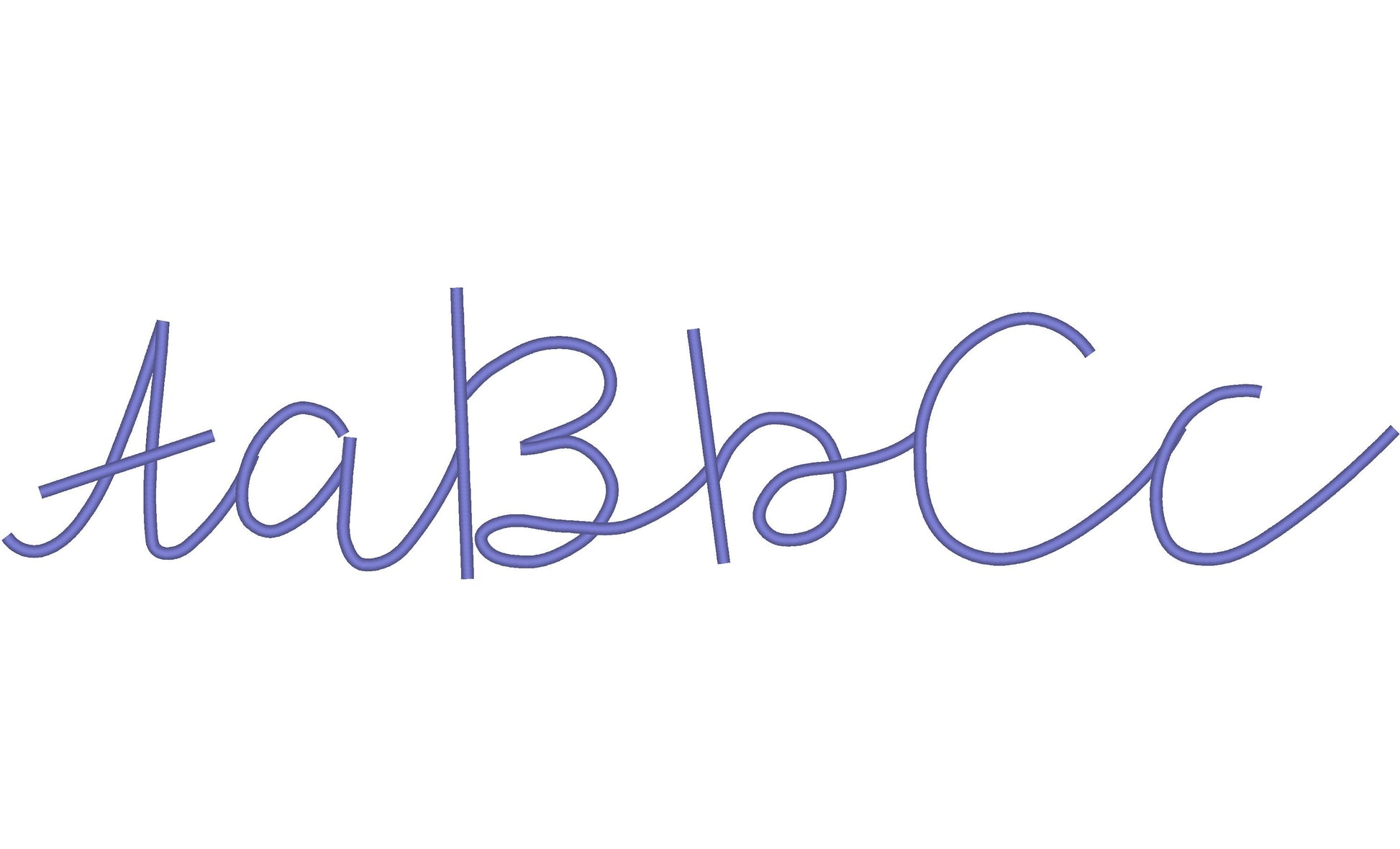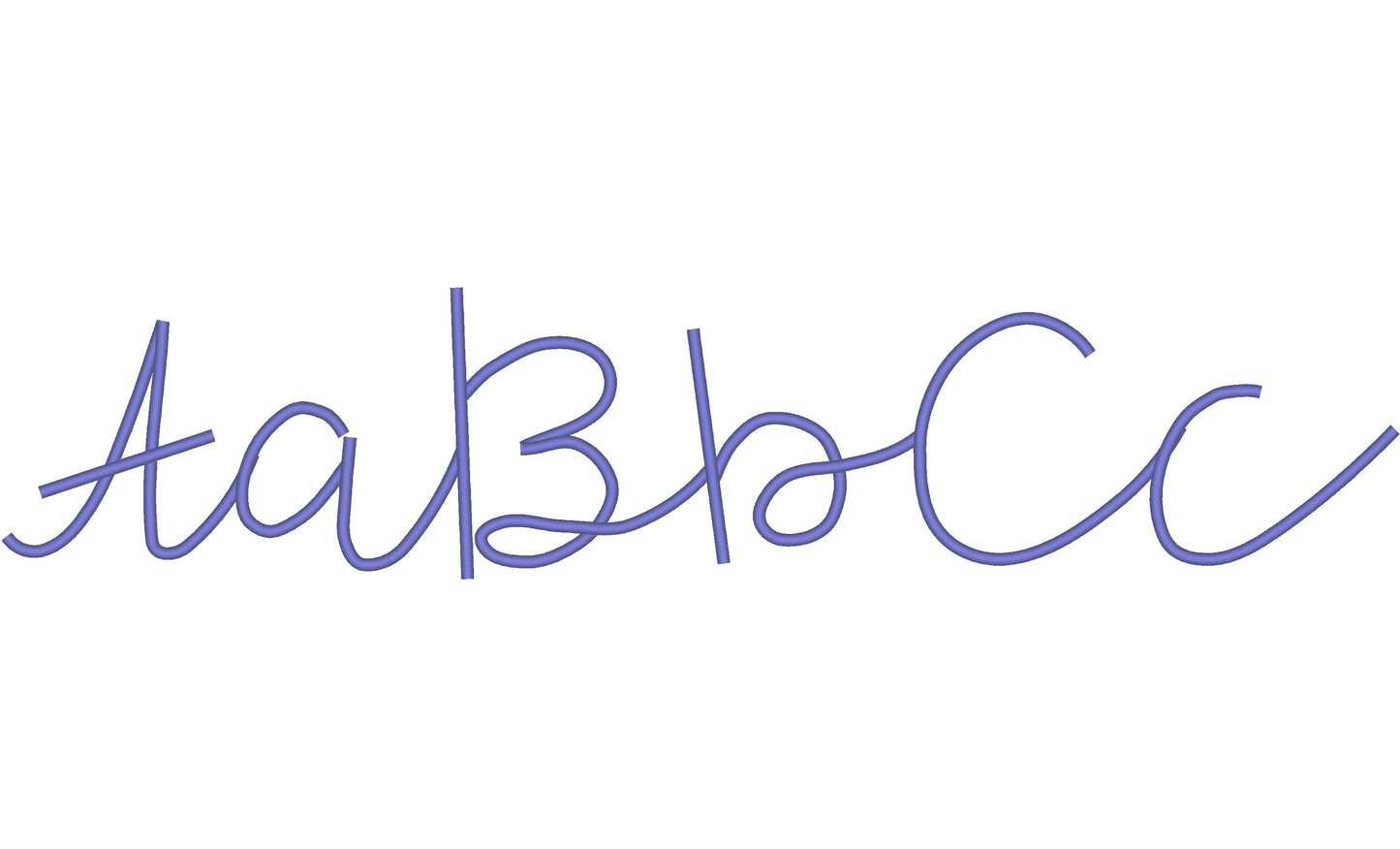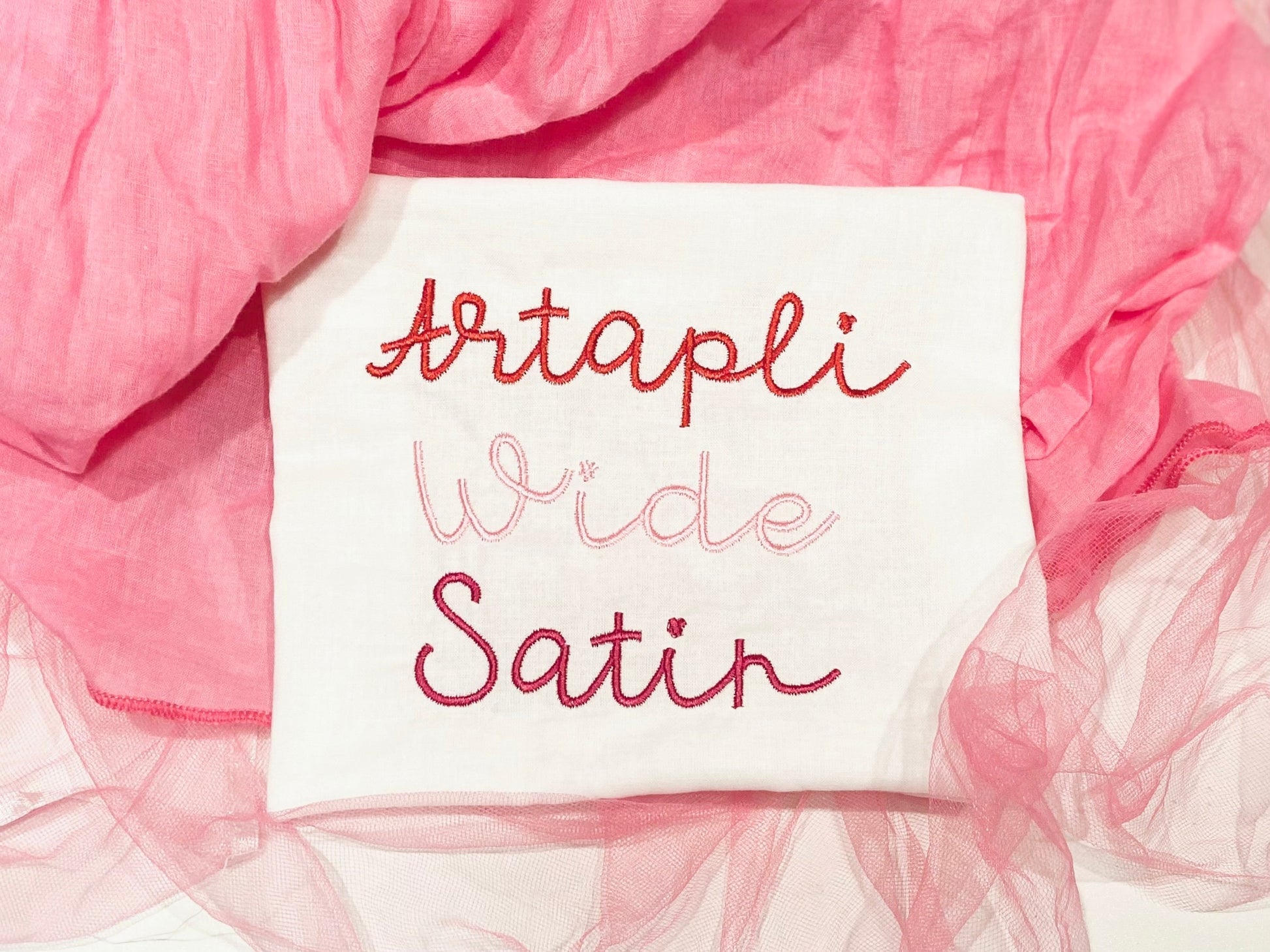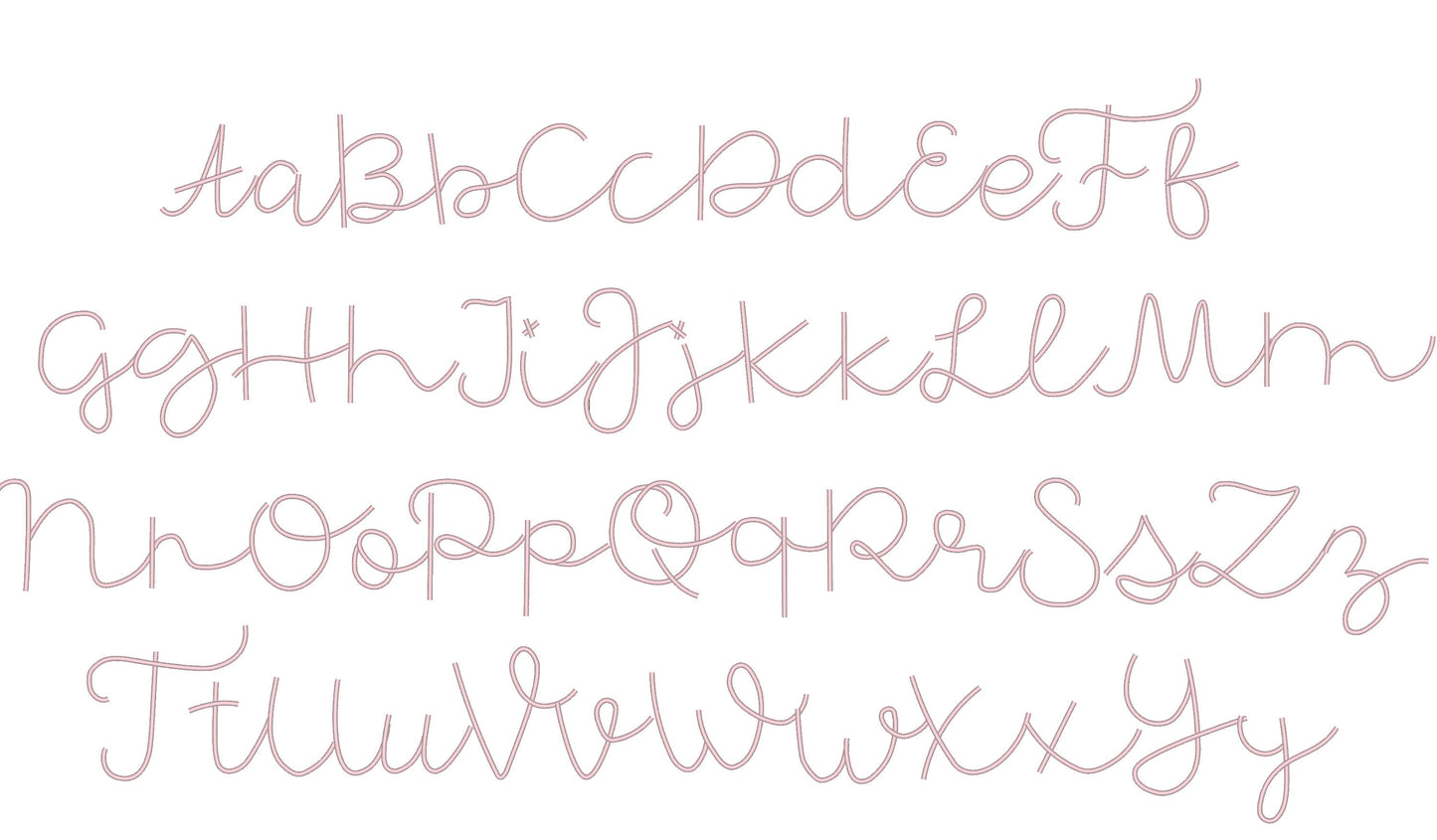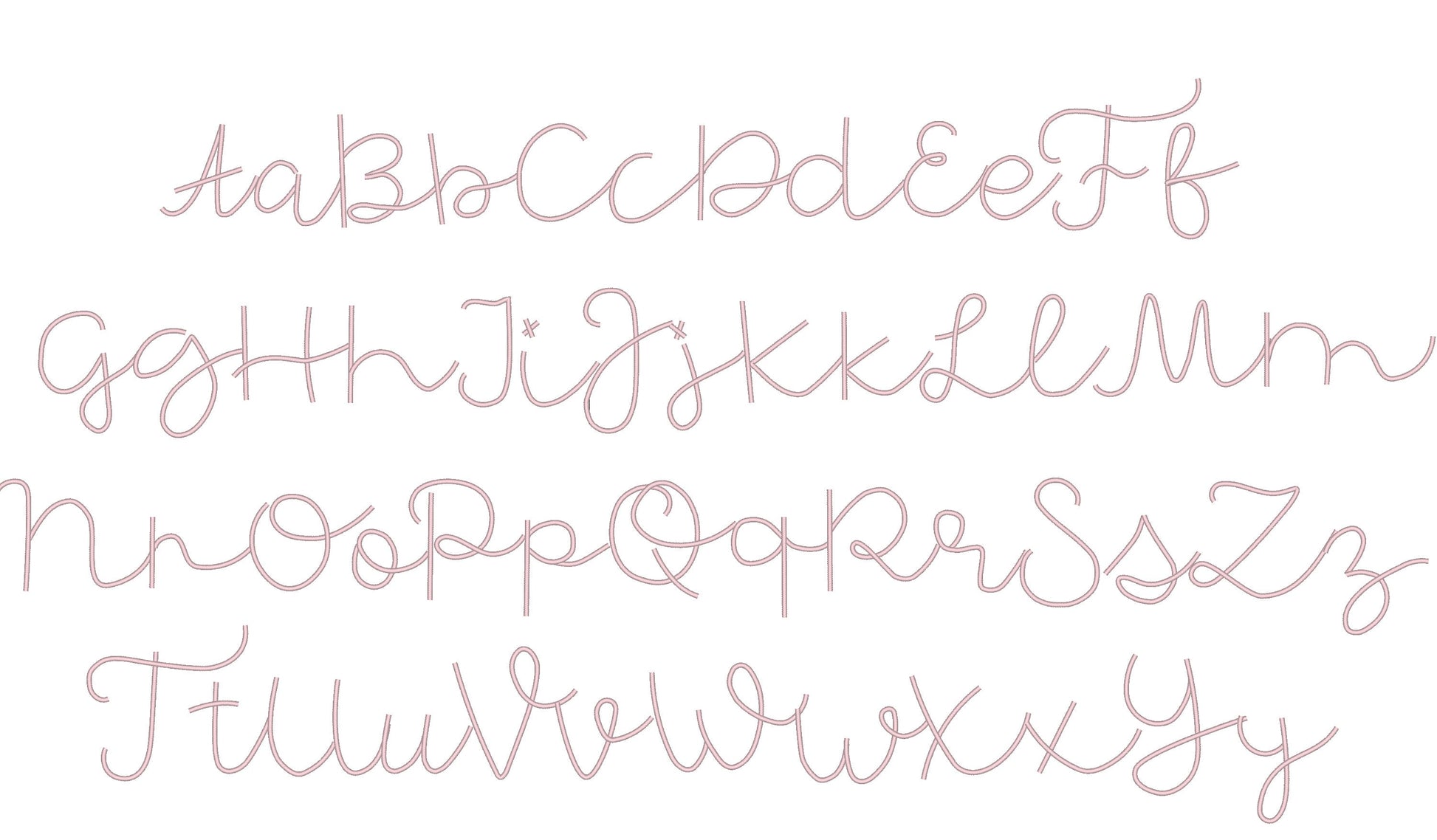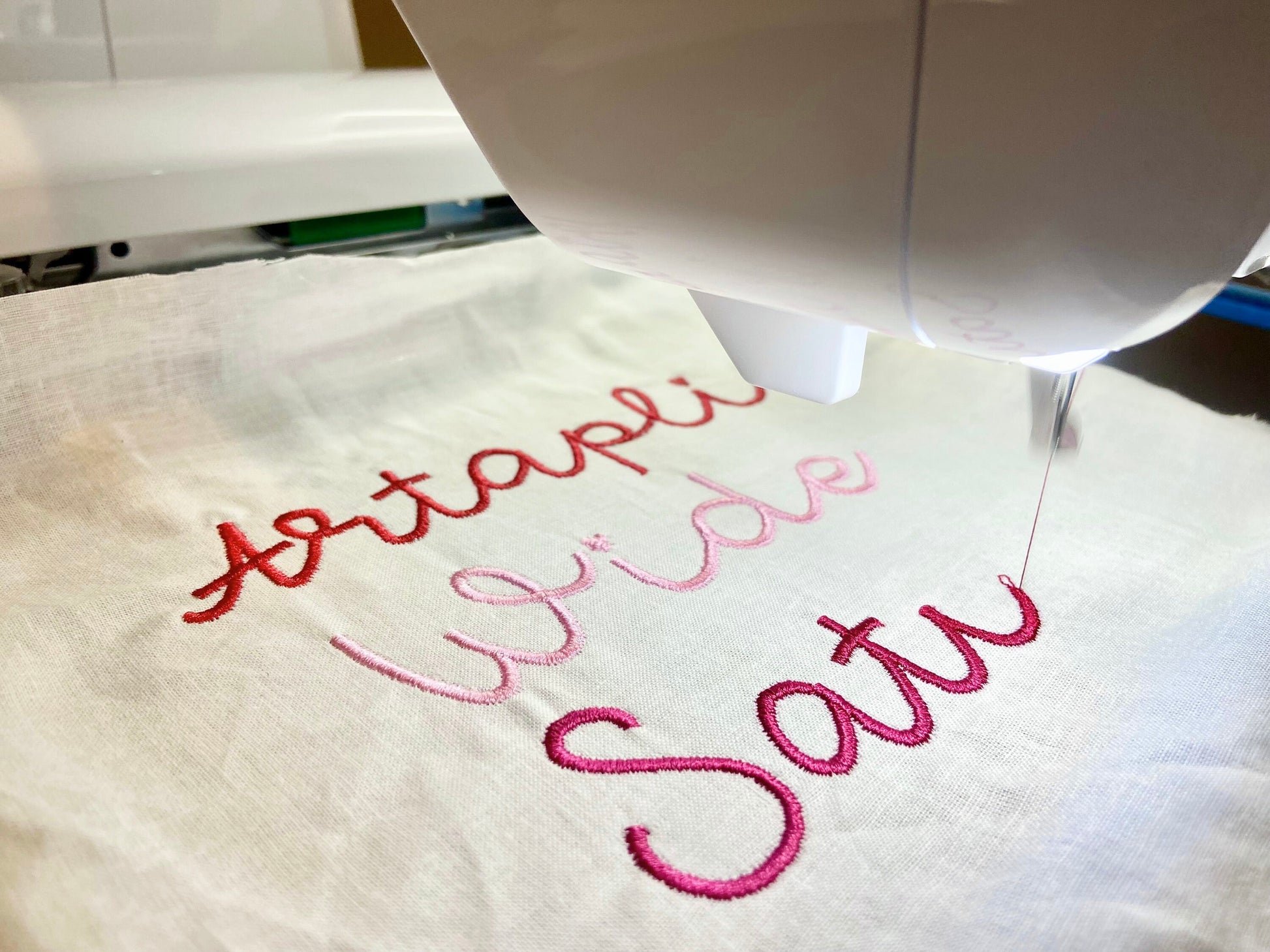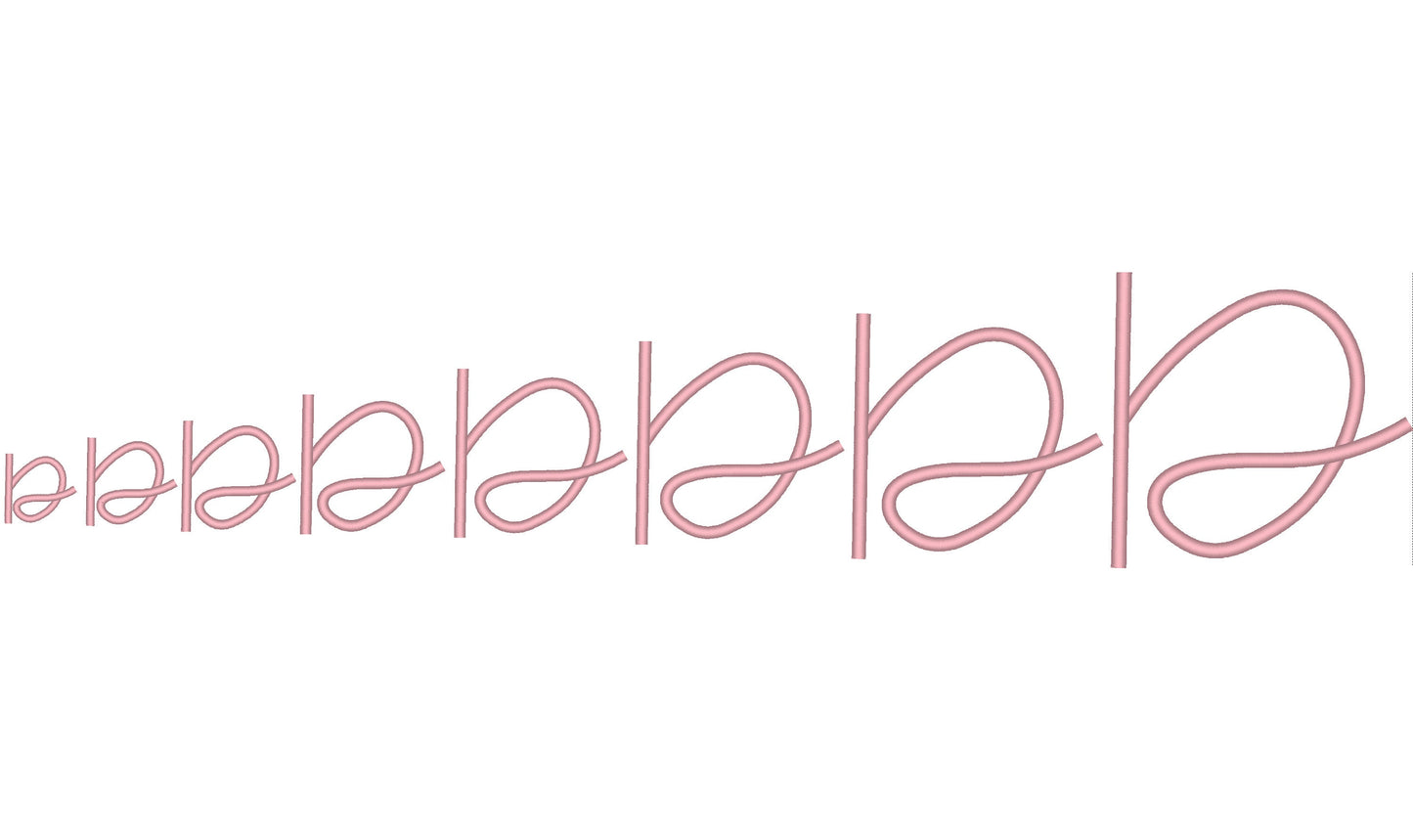
Satin Stitch Line Font
Uppercase and lowercase letters, with an alternate s, in eight sizes: 1, 1.2, 1.5, 2, 2.3, 2.8, 3.3 and 4 inches.
- Satin stitch line script font
- Uppercase and lowercase letters
- 8 sizes, 1 to 4 in